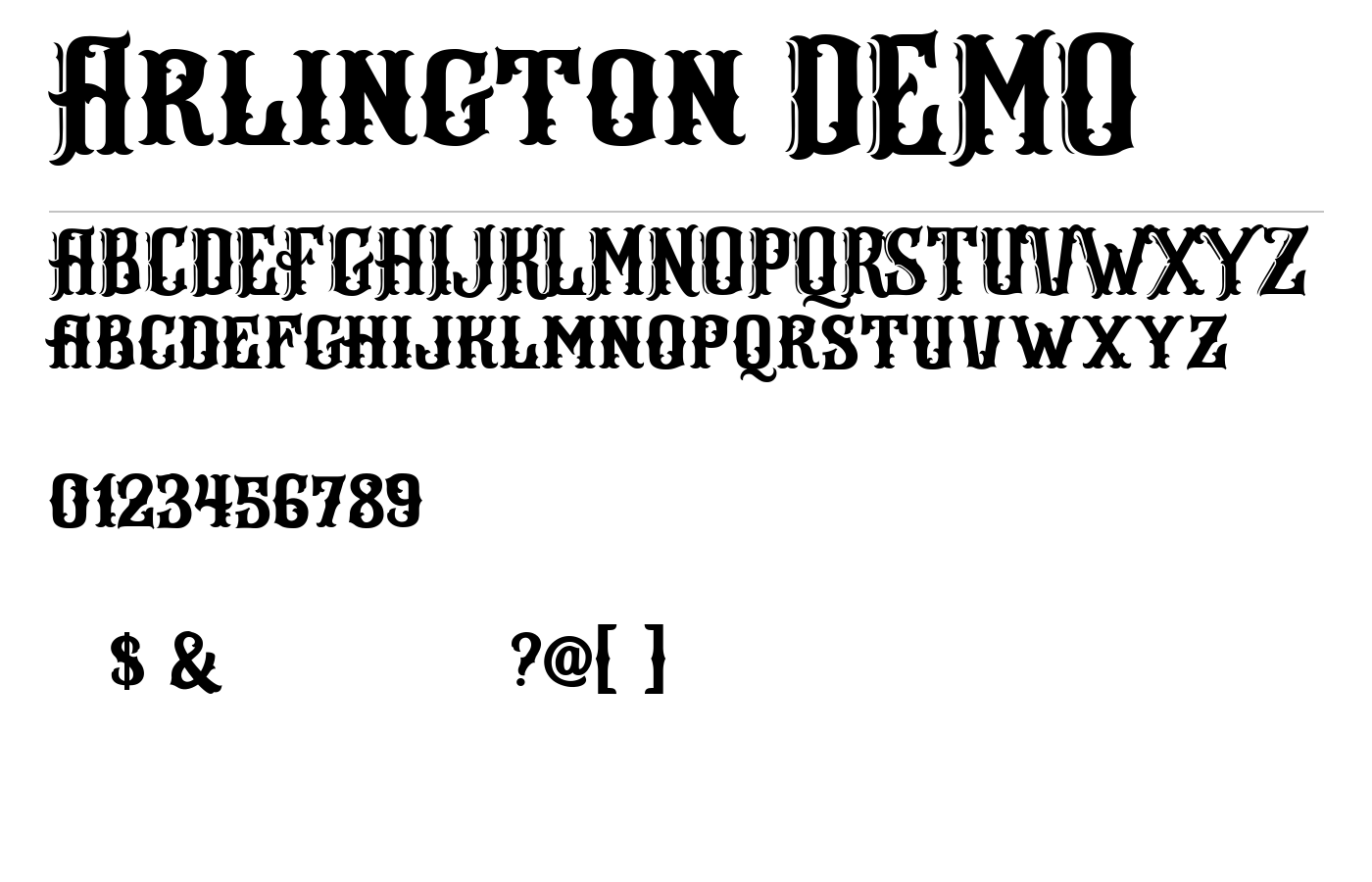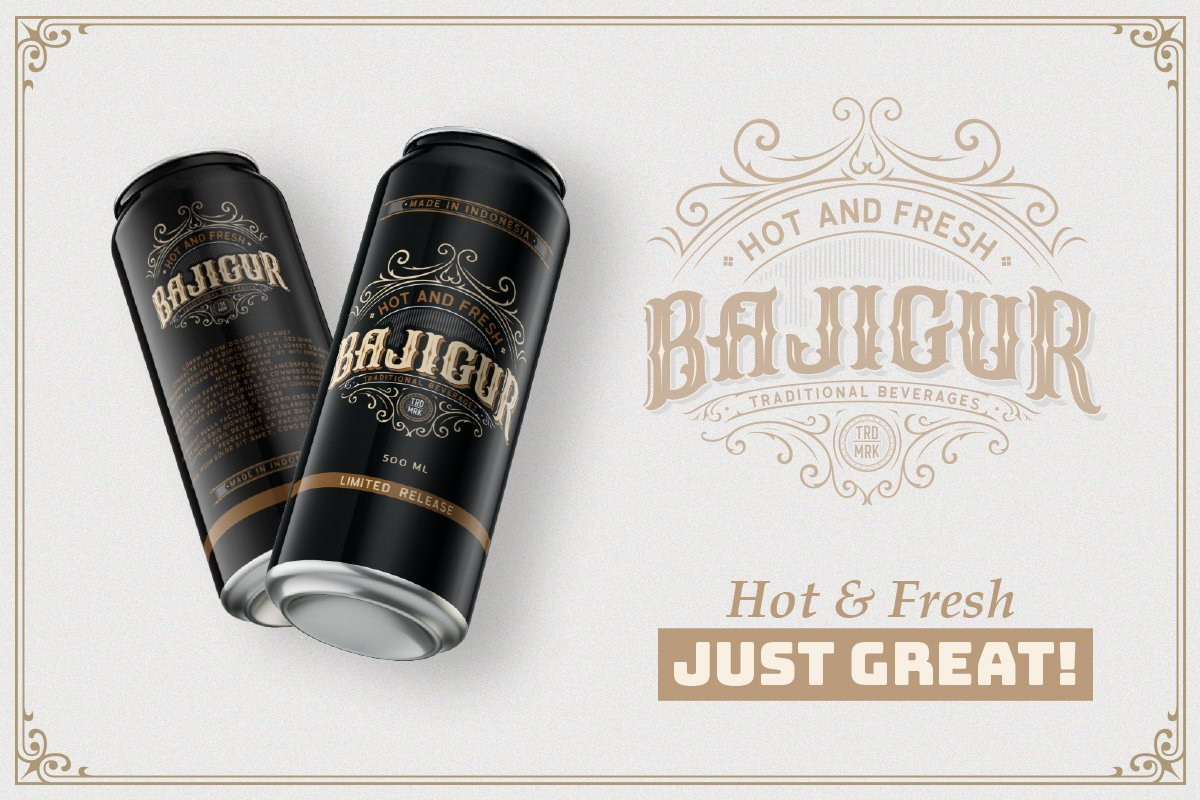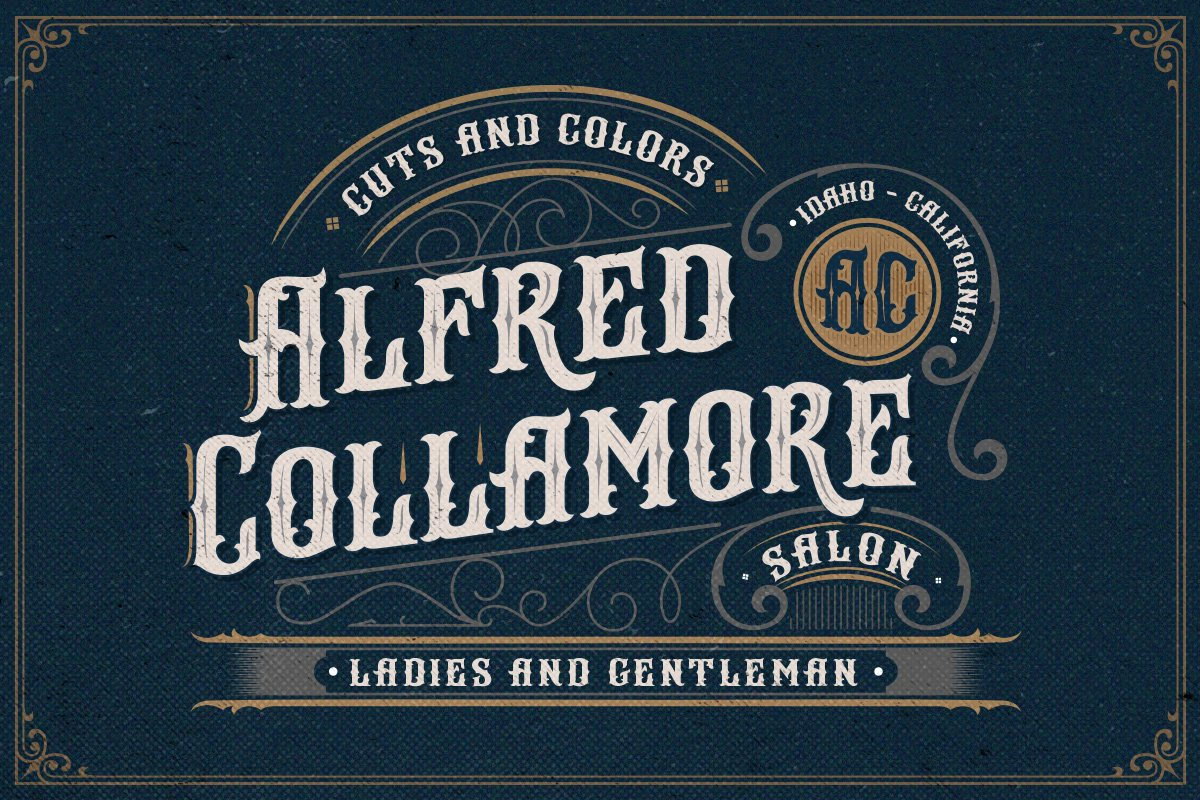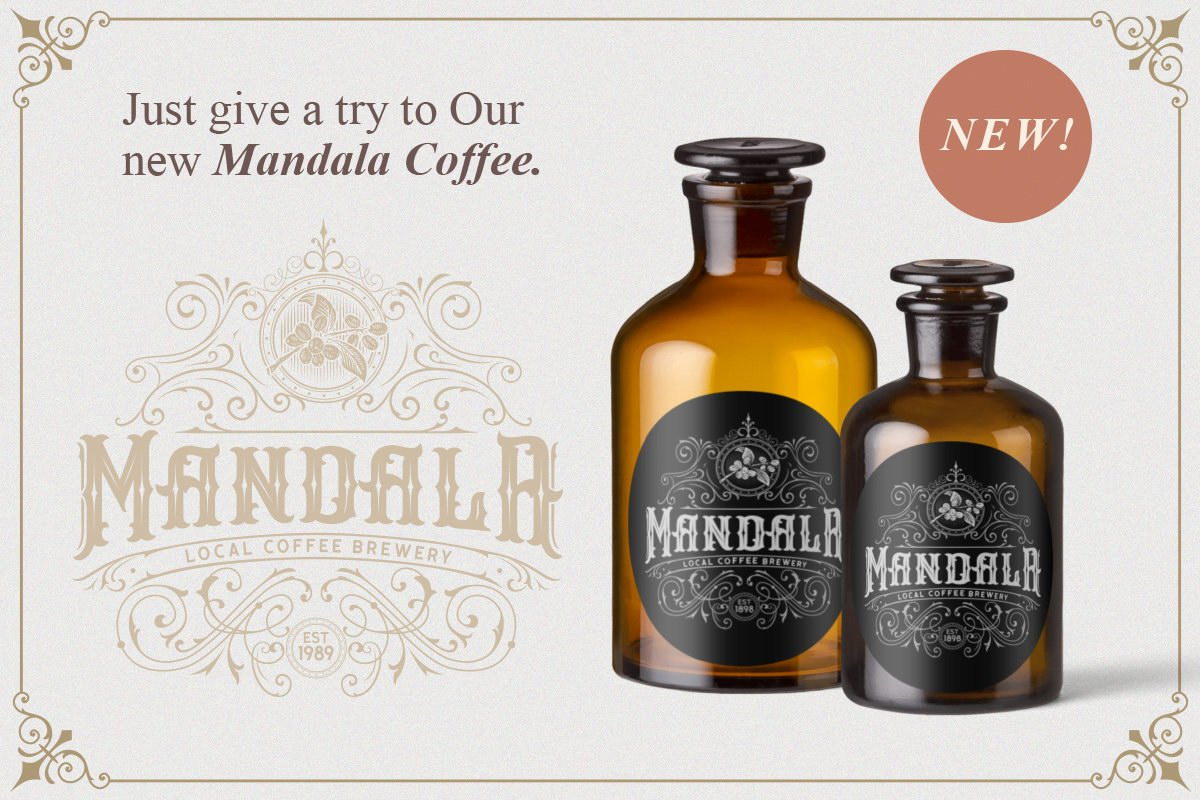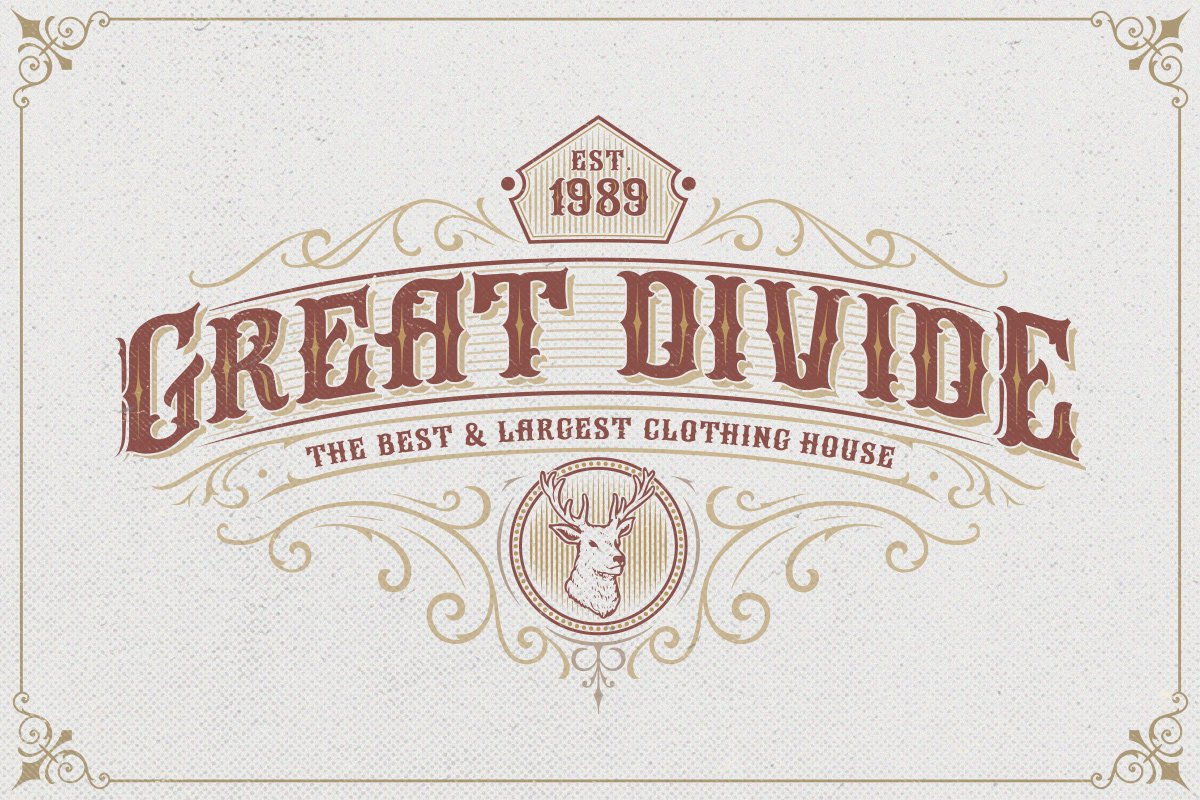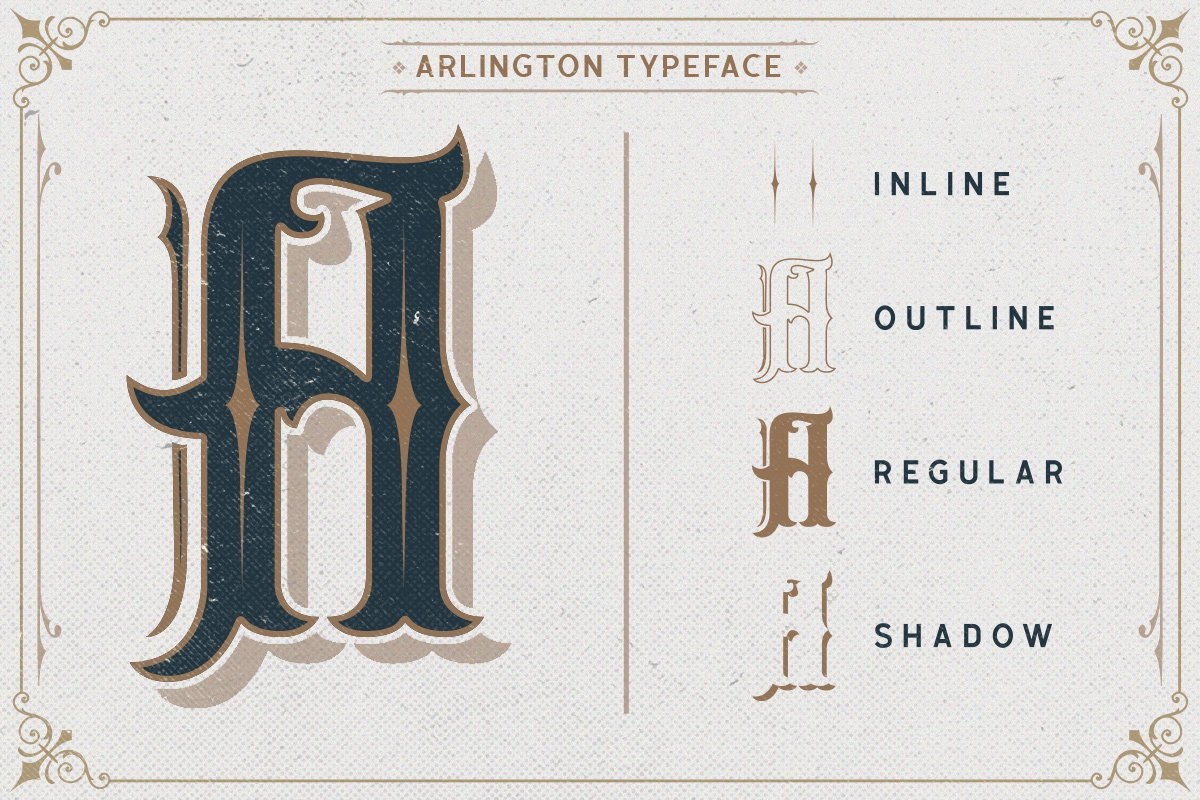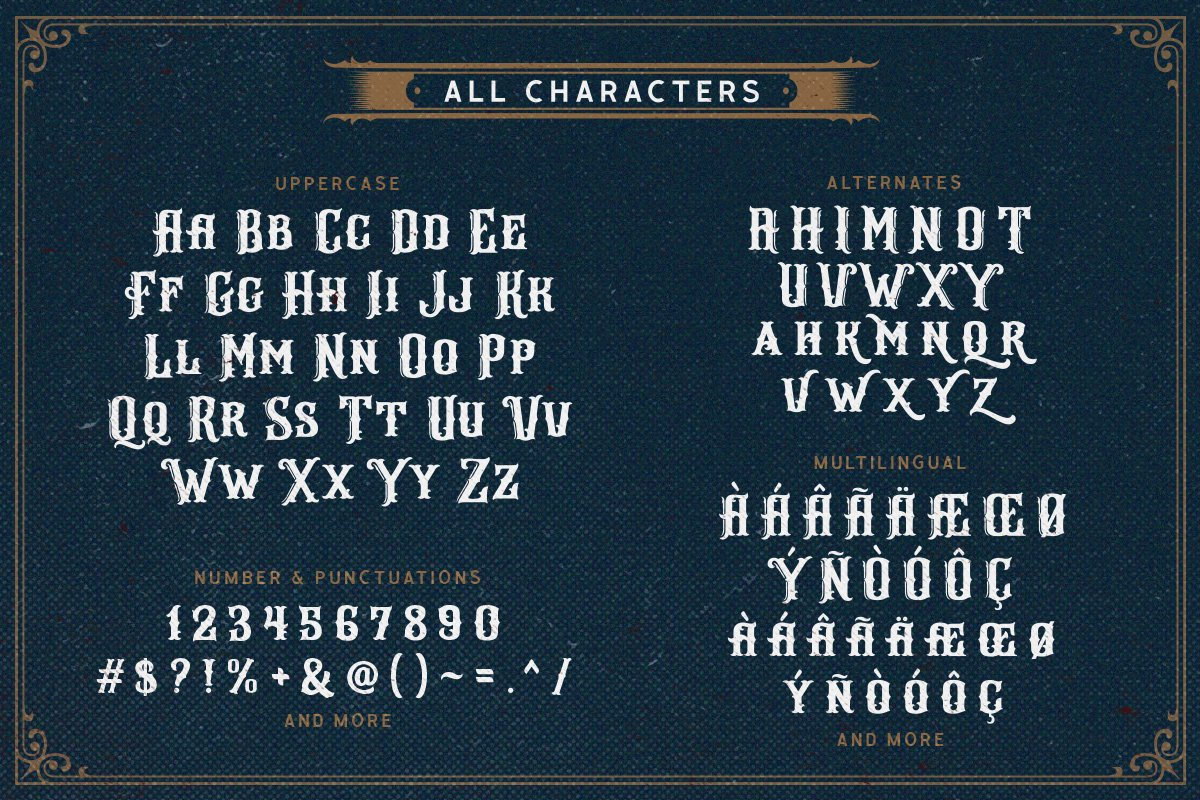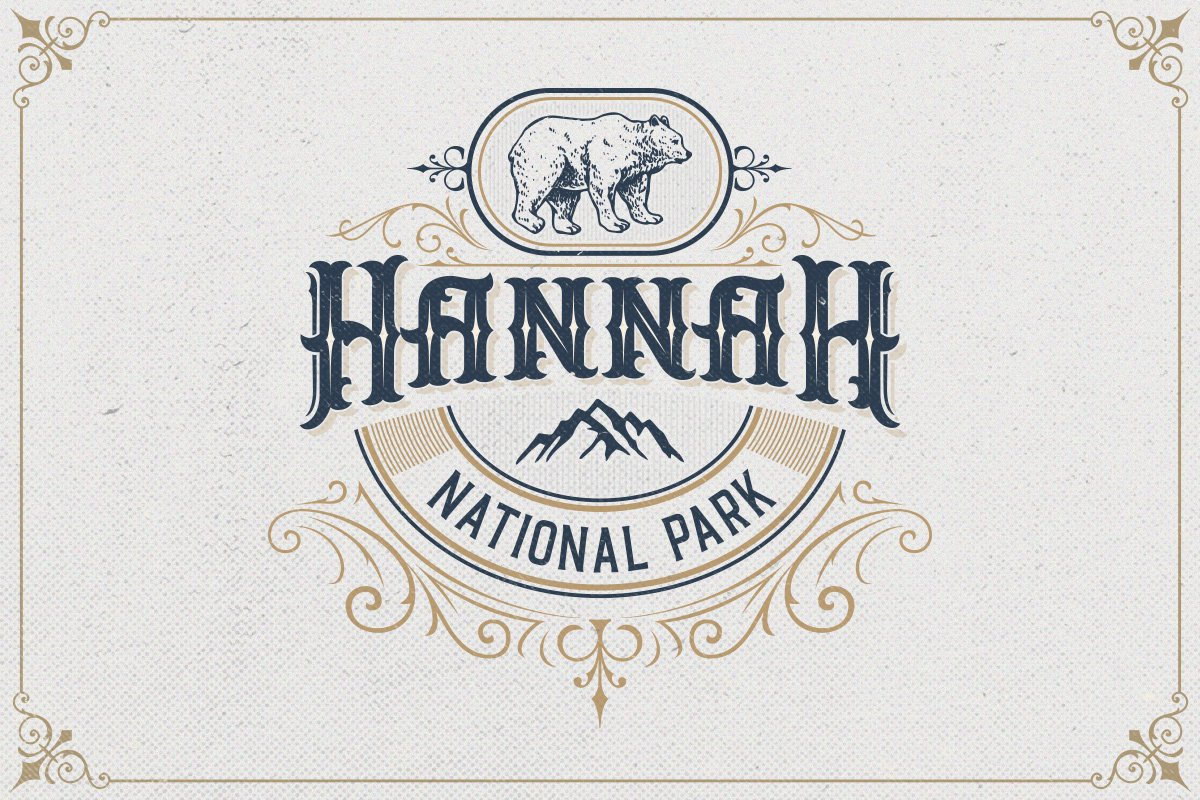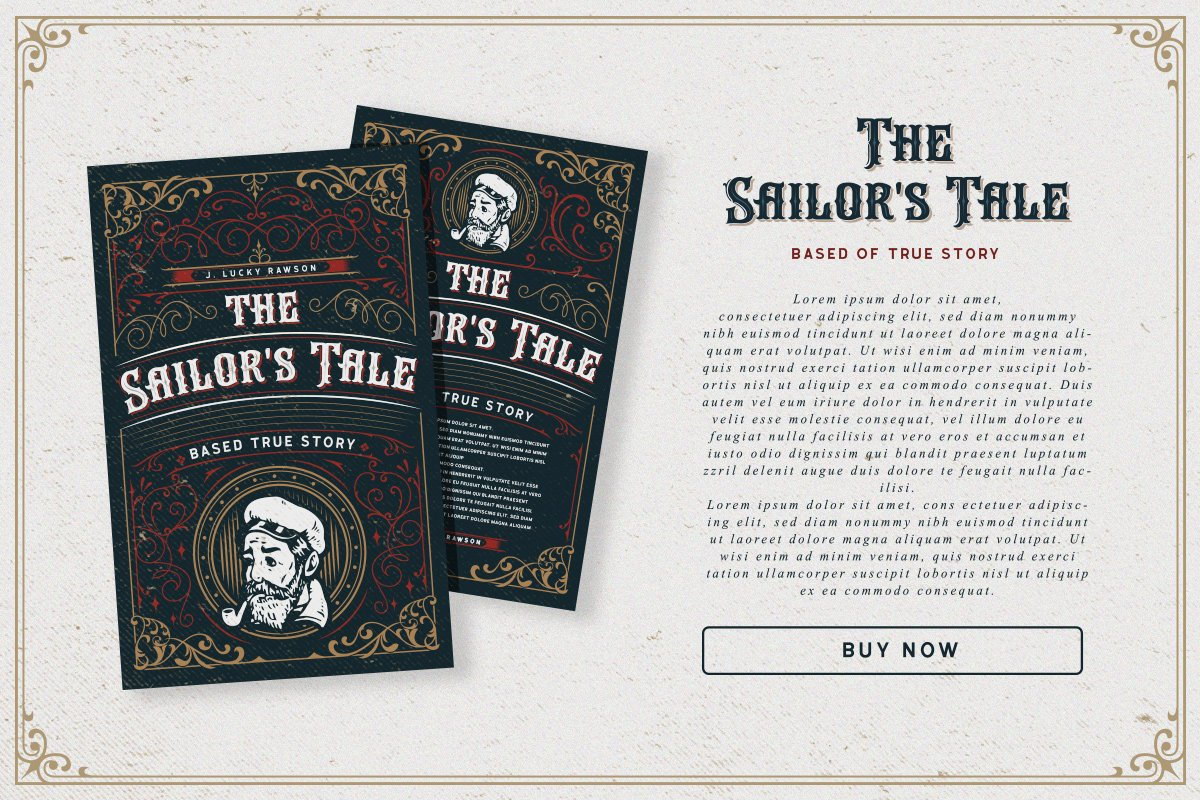
Arlington Layered is a bold, condensed serif font with a vintage Victorian vibe, featuring dramatic thick and thin strokes and ornate, bracketed serifs. Its layered design and intricate details make it perfect for eye-catching headlines, logos, and branding that call for a strong, classic, and slightly gothic personality. This font excels in projects that want to evoke elegance and historical charm while maintaining a modern flair.
Arlington Layered Font
About Arlington Layered Font
| Font family | Arlington Layered Font |